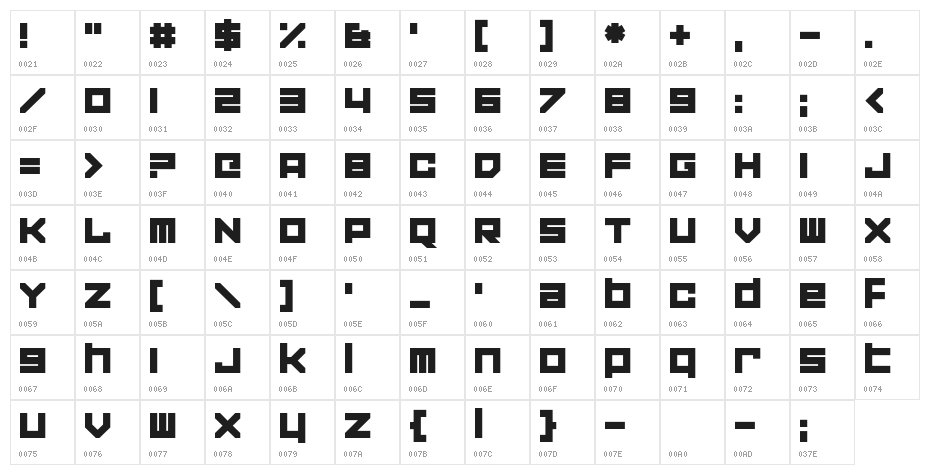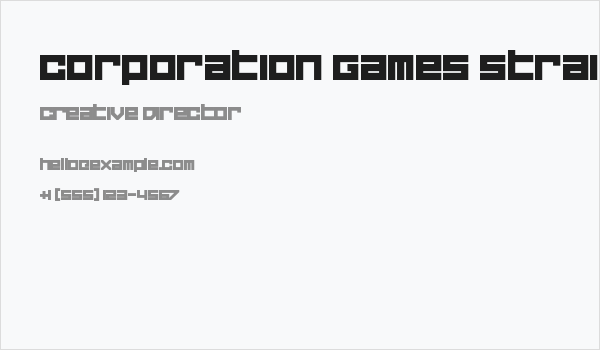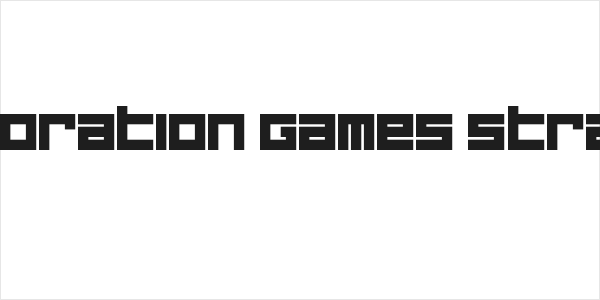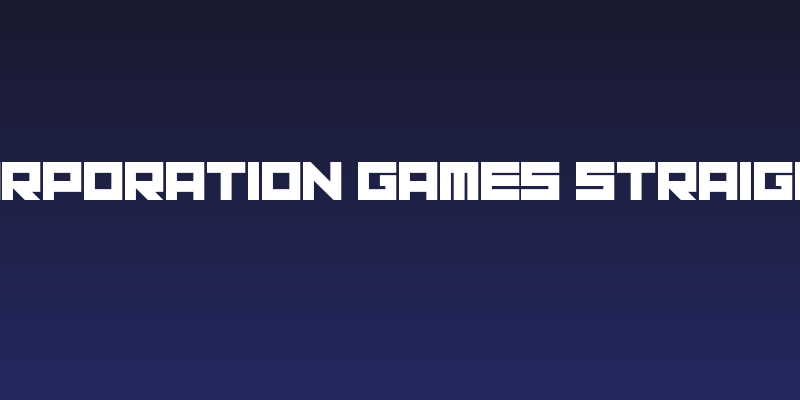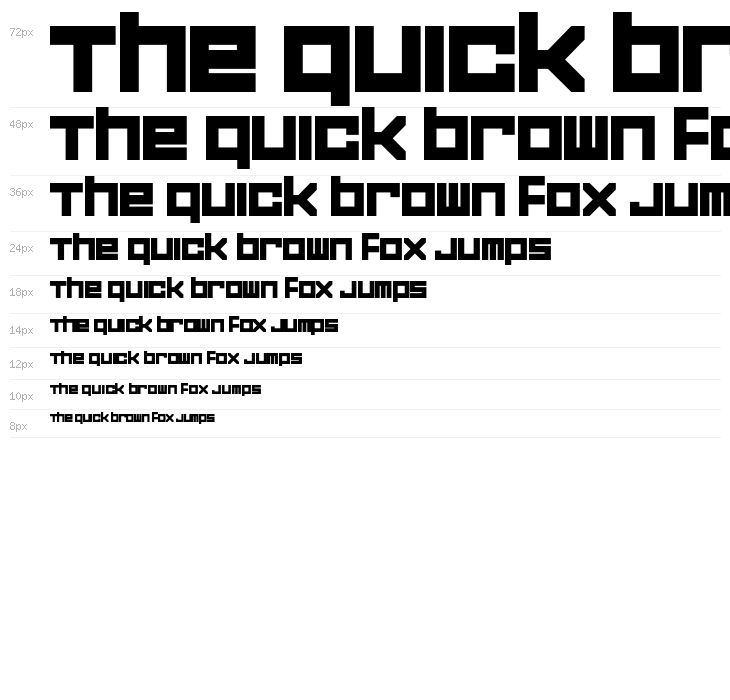
Corporation Games Straight Font
Corporation Games Straight Description
This font features a bold, geometric design with a futuristic and industrial feel. The characters are constructed with straight lines and sharp angles, giving it a blocky and robust appearance. The uppercase and lowercase letters maintain a consistent height, contributing to a uniform look. The numbers and special characters follow the same design principles, ensuring a cohesive style throughout. This font's strong presence makes it ideal for attention-grabbing headlines or branding that requires a modern, tech-inspired aesthetic.
| Proposed Projects | Ideal for video game titles, tech company logos, futuristic posters, and digital interfaces. |